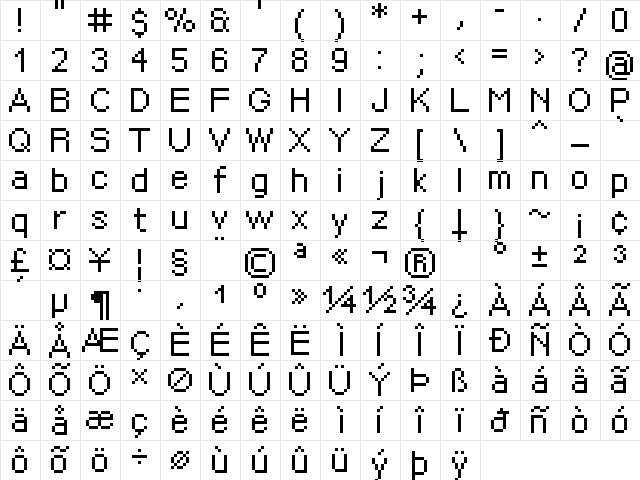
px sans nouveaux Regular
| Foundry | Elvis Mehmedovic |
| Designer | Elvis Mehmedovic |
Design Context for px sans nouveaux Typeface
px sans nouveaux takes a measured approach to typography — its balanced proportions and neutral character make it a reliable workhorse for both digital and print work.